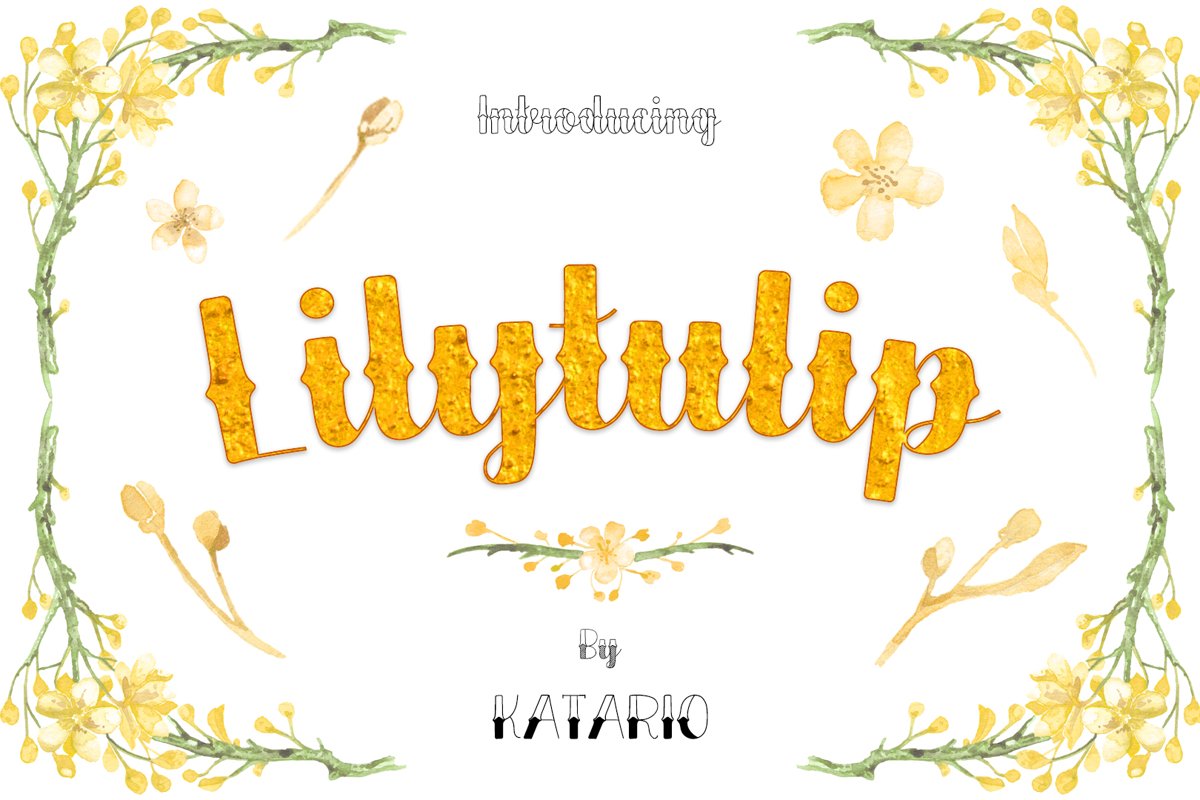
Created By Katario
Lilytulip Script Font
Introducing the elegant new Lilytulip script font! For those of you who are needing a touch of elegance and vintage for your designs, this font was created for you!
A lot of style you can used for your design.